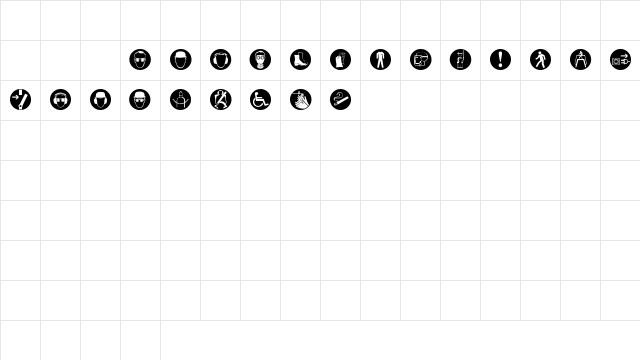
imperatives tables Regular
Design Context for imperatives tables
imperatives tables is a composed and adaptable typeface that performs quietly and consistently across a wide range of design contexts.